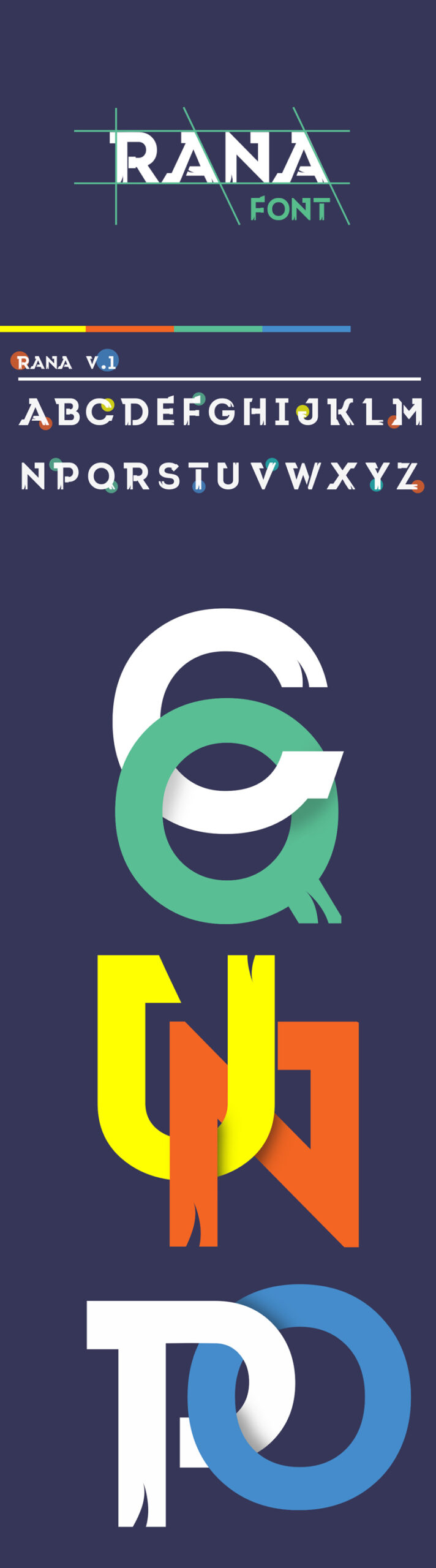
Go ahead and download Rana V.1 Typeface if you’re looking to add a bit of friendliness to your latest projects. Rana was designed by Mohamed – Ter Vex ✪ from Egypt and it’s great for T-shirts, menus, logos, branding, packaging and more! Free for personal and commercial use!